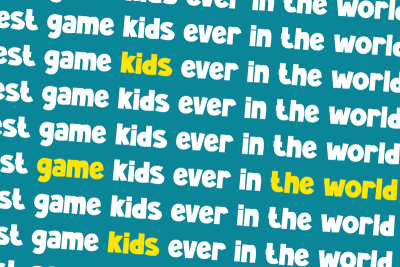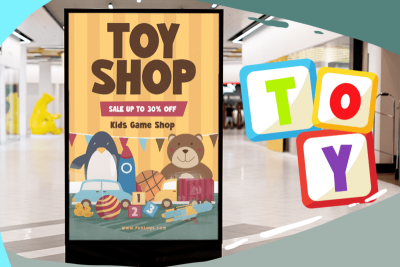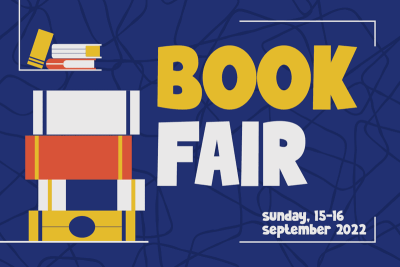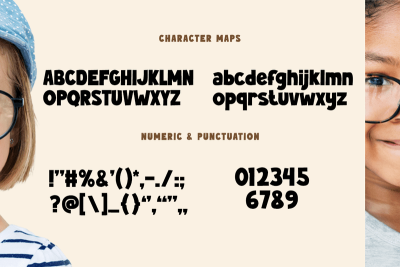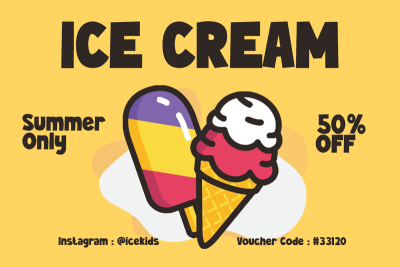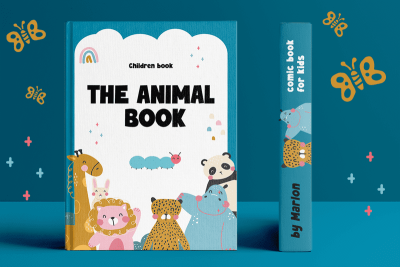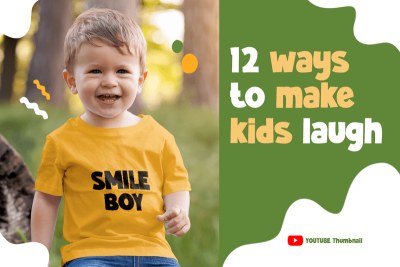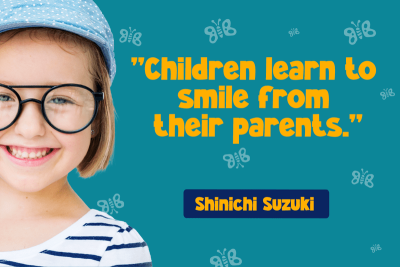
Kids font Cronos Kid is a bold and playful typeface designed for childrenโs designs and family-friendly projects. Its rounded edges, bubbly shapes, and cheerful look create an engaging and fun feel. Moreover, the font’s simplicity ensures it is easy to read, making it ideal for younger audiences.
In addition, Cronos Kid stands out with its bold strokes and dynamic style, which makes it perfect for grabbing attention. It works well in posters, banners, and digital media, adding energy and creativity to any project. Furthermore, its approachable design is ideal for designs needing a lighthearted, childlike tone.
This font is highly versatile and works for both print and digital formats. Specifically, it shines in educational materials, storybooks, party decorations, and branding for kid-focused businesses. By blending charm, clarity, and playfulness, ensures your designs connect effectively with both children and their families.
Kids font Cronos Kid Best For
Cronos Kid is ideal for educators, parents, designers, and businesses that target children or families. For example, teachers can use it for worksheets, flashcards, and bulletin boards to make learning fun and engaging. Likewise, parents can create party invitations, banners, and decorations that add a joyful touch to any event.
Additionally, designers will find this font perfect for book covers, animated titles, toy packaging, and kid-friendly posters. Its vibrant and bold style ensures that any design stands out. Similarly, bloggers and content creators focusing on parenting or childrenโs topics can use Cronos Kid to make their content more inviting.
For businesses, like toy brands, daycare centers, and educational startups, the font is perfect for branding and advertisements. Its playful yet professional look works across various platforms, including social media, websites, and print materials.
In conclusion, Cronos Kid is not just a fontโitโs a creative tool for bringing vibrancy, fun, and energy to any project. Therefore, itโs the perfect choice for anyone who wants their designs to delight children and families alike.